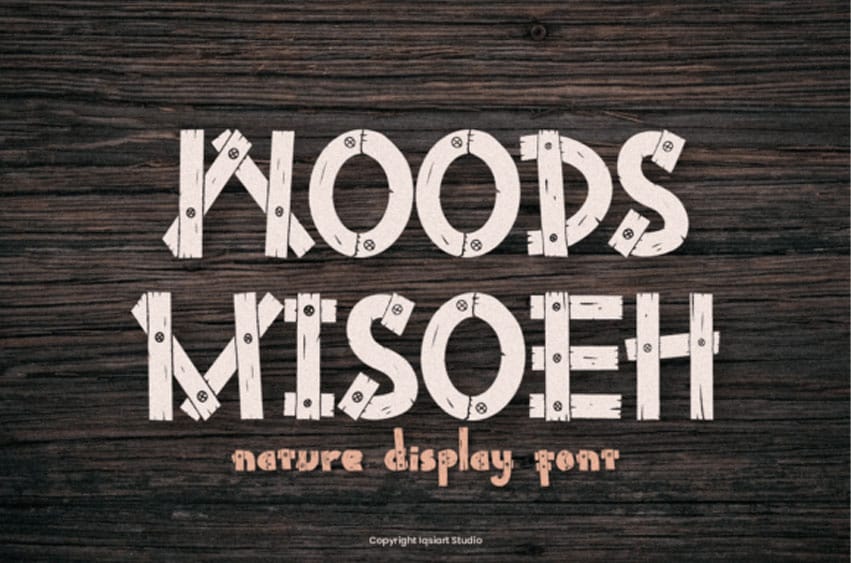
Woods Misoeh Font is a nature-inspired decorative display font. Woods Misoeh is a bold and playful nature decorative font that brings a rustic, handcrafted vibe to any design. Its distinctive letterforms, designed to mimic the texture and feel of wooden planks with engraved details and subtle geometric cuts, make it perfect for outdoor-inspired projects.
The strong, blocky structure combined with creative detailing gives this font a dynamic personality, ideal for posters, adventure-themed branding, signage, and playful packaging.
Woods Misoeh captures the essence of natural craftsmanship while maintaining a modern edge, offering designers a versatile and eye-catching typeface for both print and digital applications.